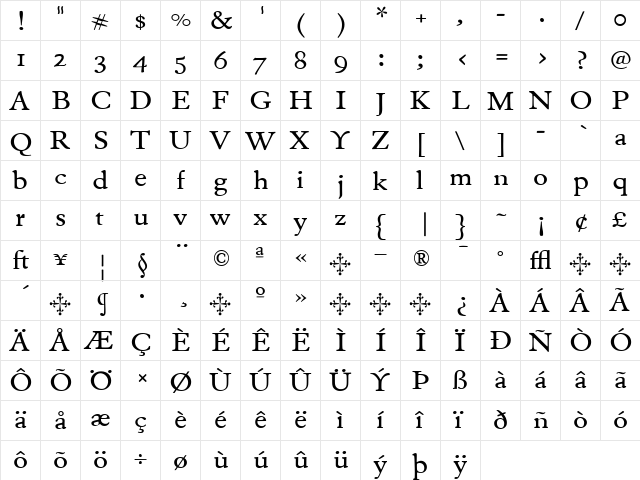
EldoradoMicro Regular
Design Context for EldoradoMicro Typeface
EldoradoMicro offers clean, dependable letterforms without strong stylistic allegiance, making it a practical choice for designers who need flexibility.